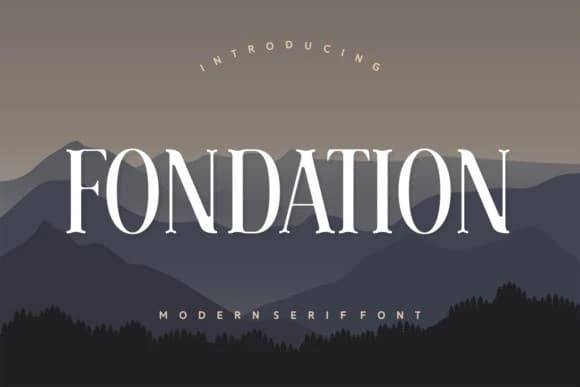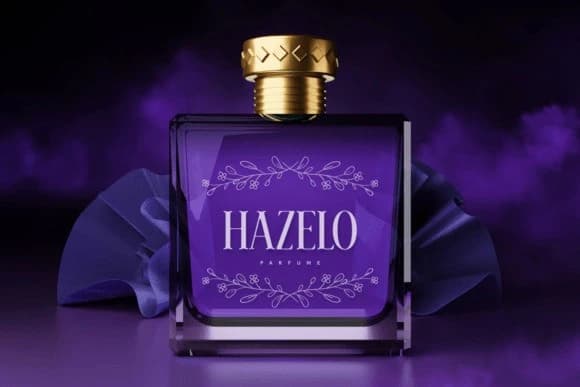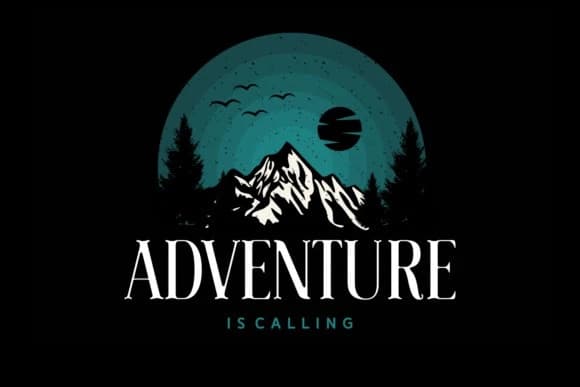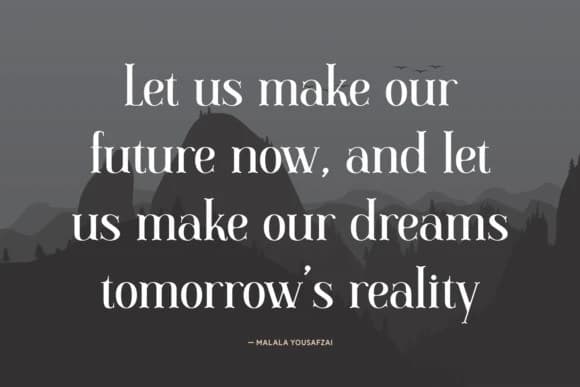
Fondation Font
Fondation Font, a harmonious blend of sophistication and versatility in the world of fonts. Combining an elegant, modern essence, Fondation is a wonderful choice for a variety of applications. From the sleek design of photography overlays to accentuating apparel labels